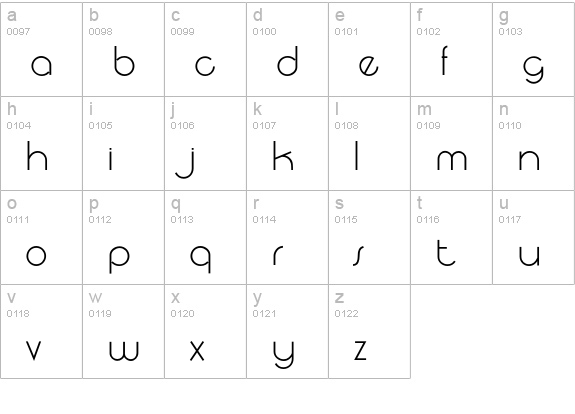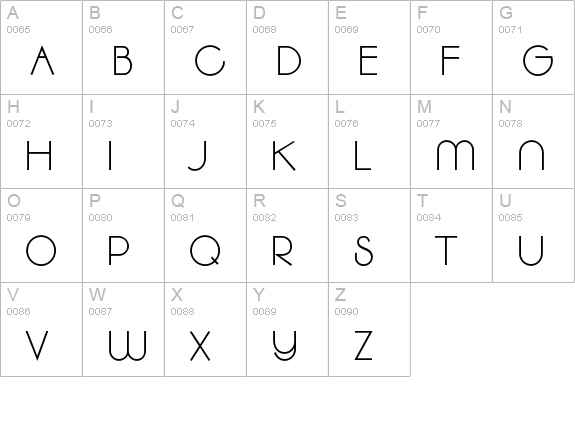
Cecilia Font Details
Cecilia font is an elegant and versatile typeface that exudes sophistication and charm. With its graceful curves and stylish letterforms, Cecilia is perfect for adding a touch of class to any design project. Whether you're creating wedding invitations, branding materials, or editorial layouts, this font will elevate your work to the next level. What's even better is that Cecilia font is completely free to download at FontsMarket.com. You can easily access this exquisite typeface and enhance your designs with its timeless beauty. Don't miss out on the opportunity to add Cecilia font to your font collection and bring a touch of elegance to your projects.